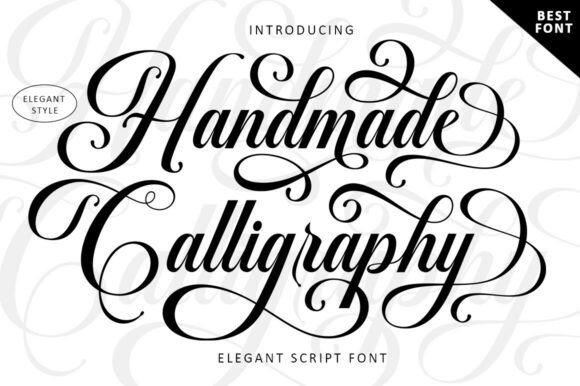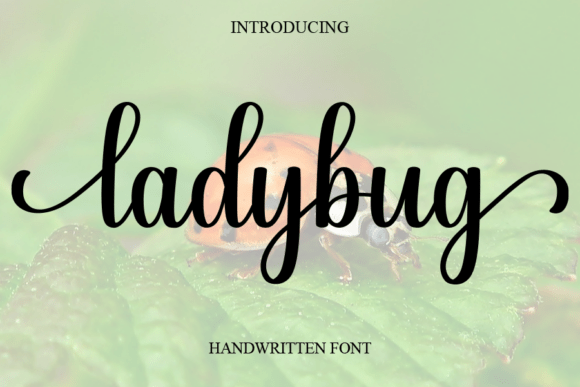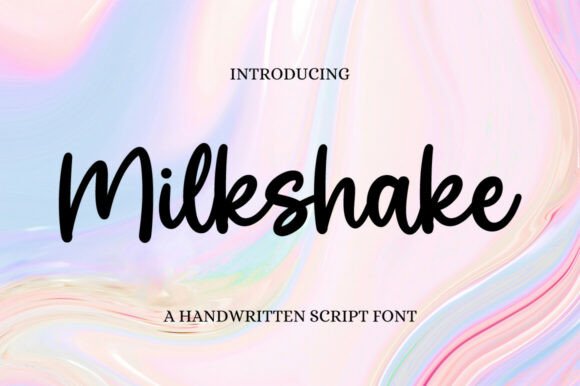
Best Free Script Fonts for Wedding Invitations in 2026
Choosing the perfect script font for your wedding invitations can elevate your design and create a memorable first impression for your guests. With so many options available, finding the right balance between elegance and readability is key. Fortunately, there are stunning free script fonts that offer a professional touch without breaking the bank. Whether you prefer classic calligraphy, playful handwritten styles, or whimsical Disney-inspired lettering, this guide highlights the best options for 2026. Each font featured here is carefully selected for its beauty, versatility, and ease of use in wedding stationery projects. Let’s explore these gorgeous typefaces to help you craft the perfect invitation suite.
Handmade Calligraphy Font
The Handmade Calligraphy Font is a dream come true for couples seeking an elegant, timeless look for their wedding invitations. This font mimics the fluid strokes of traditional calligraphy, adding a sophisticated and personal touch to any design. Its graceful curves and delicate swashes make it ideal for formal invitations, place cards, and monograms. Best of all, it’s available as a free script font, making it accessible for DIY designers. Whether you’re printing on premium paper or creating digital invites, this font ensures your text stands out beautifully.
Ladybug Font
For a playful yet elegant vibe, the Ladybug Font is a fantastic choice. This charming free script font features soft, flowing strokes with a slightly whimsical feel, perfect for rustic, boho, or garden-themed weddings. Its readability makes it great for both headlines and body text, ensuring your invitation details are clear and stylish. The font includes lovely ligatures and alternates, allowing for creative customization. Whether you’re designing a vintage-inspired suite or a modern minimalist invite, Ladybug adds a touch of warmth and personality to your wedding stationery.
Disney Font
Bring a touch of fairy-tale magic to your wedding with the Disney Font. Inspired by the iconic lettering seen in Disney films, this free script font is perfect for couples who want a whimsical, romantic feel. Its flowing, slightly exaggerated curves evoke nostalgia and charm, making it ideal for themed weddings or Disney-loving brides and grooms. The font works beautifully for headlines, monograms, and decorative accents. Pair it with delicate floral illustrations for a storybook-inspired invitation suite that will enchant your guests before they even arrive.
Milkshake Font
The Milkshake Font offers a sweet, casual script style that’s perfect for relaxed, modern weddings. This free script font features smooth, rounded letterforms with a friendly, approachable feel—ideal for beach weddings, backyard celebrations, or DIY designs. Its versatility allows it to pair well with sans-serif fonts for contrast, making it great for both invitations and accompanying details like programs or menus. The slightly irregular strokes give it a handcrafted vibe, adding authenticity to your wedding stationery. If you’re aiming for a laid-back yet polished aesthetic, Milkshake is a delightful choice.
Simple Handwriting Font
For a clean, understated elegance, the Simple Handwriting Font is an excellent pick. This free script font mimics natural handwriting with its effortless flow and subtle imperfections, giving your invitations a personal, intimate feel. It’s highly legible, making it suitable for longer text blocks like RSVP cards or thank-you notes. The font’s minimalist style pairs well with modern designs, watercolor accents, or geometric patterns. If you want a sophisticated yet unfussy look that feels handwritten without being overly ornate, this font delivers timeless appeal.
Conclusion
Selecting the right free script font can transform your wedding invitations from ordinary to extraordinary. The fonts featured here—Handmade Calligraphy, Ladybug, Disney, Milkshake, and Simple Handwriting—each offer unique styles to match different wedding themes and personal tastes. Whether you’re aiming for classic elegance, playful charm, or modern simplicity, these typefaces provide high-quality design without the cost. Experiment with pairing them with complementary fonts and decorative elements to create a cohesive invitation suite. With these options, your wedding stationery will reflect your love story beautifully and leave a lasting impression on your guests.